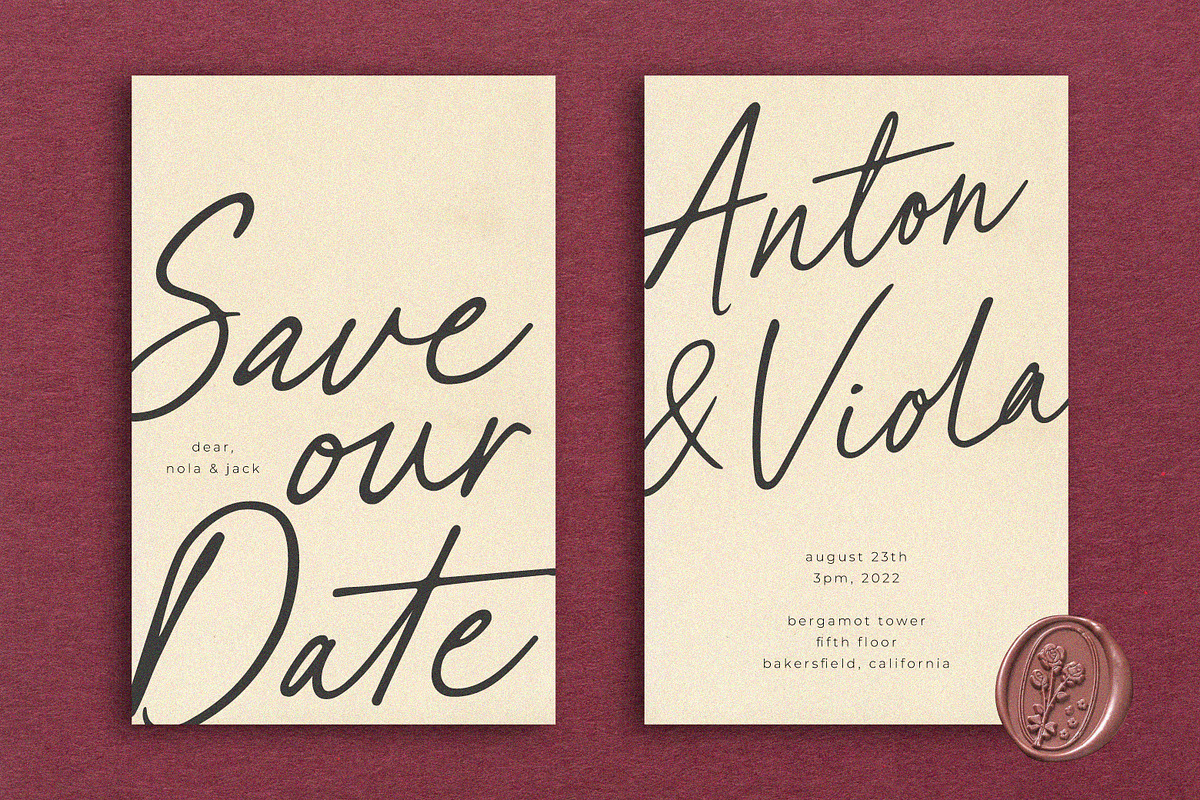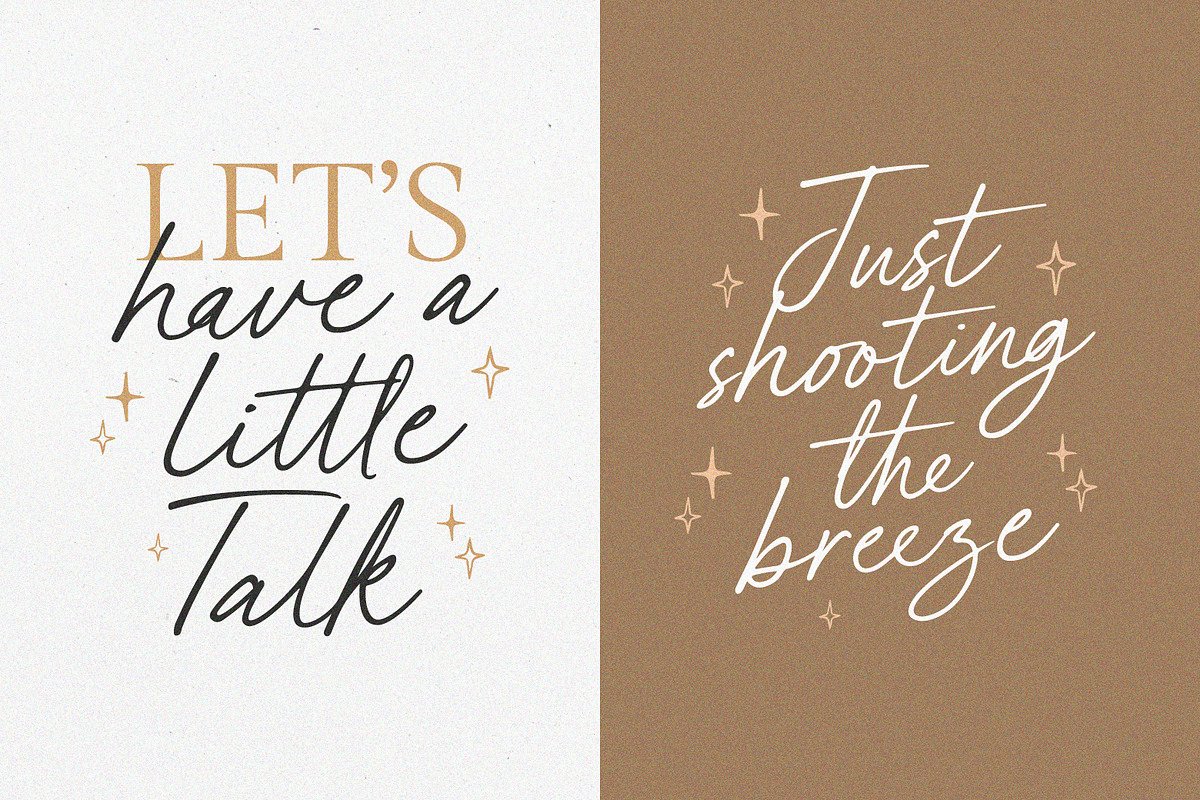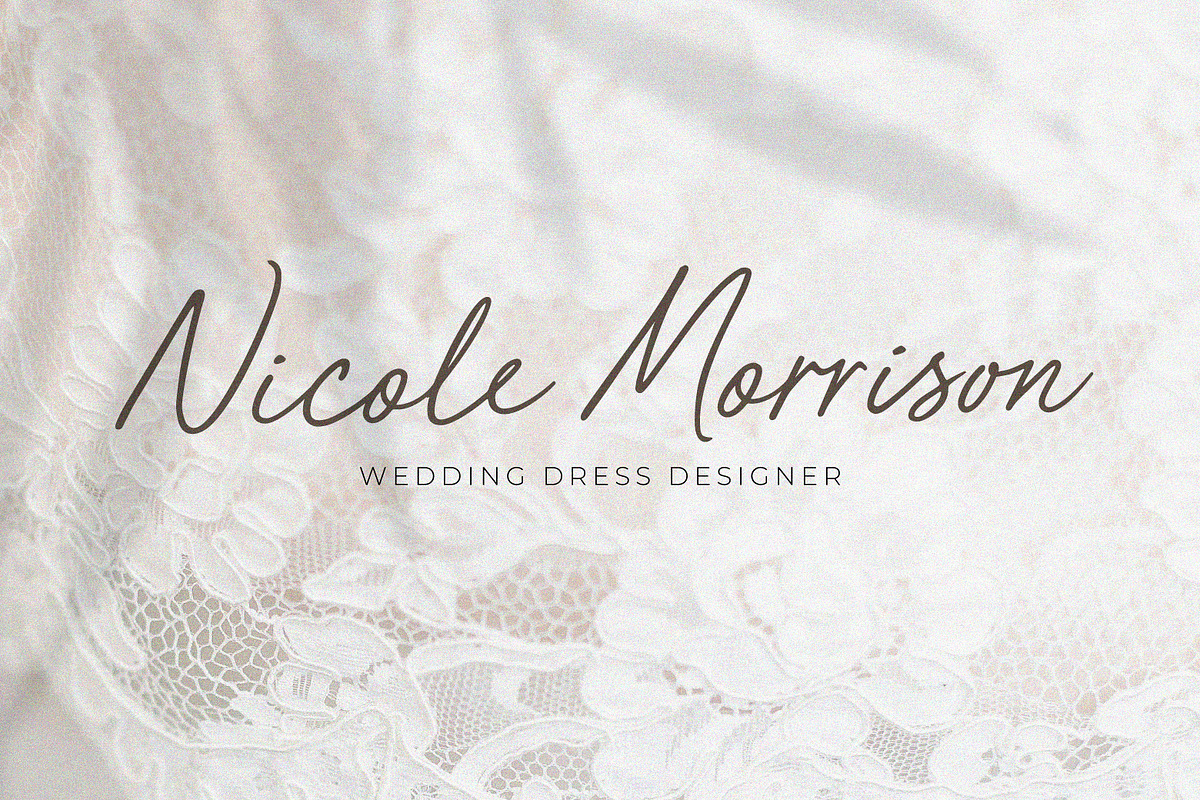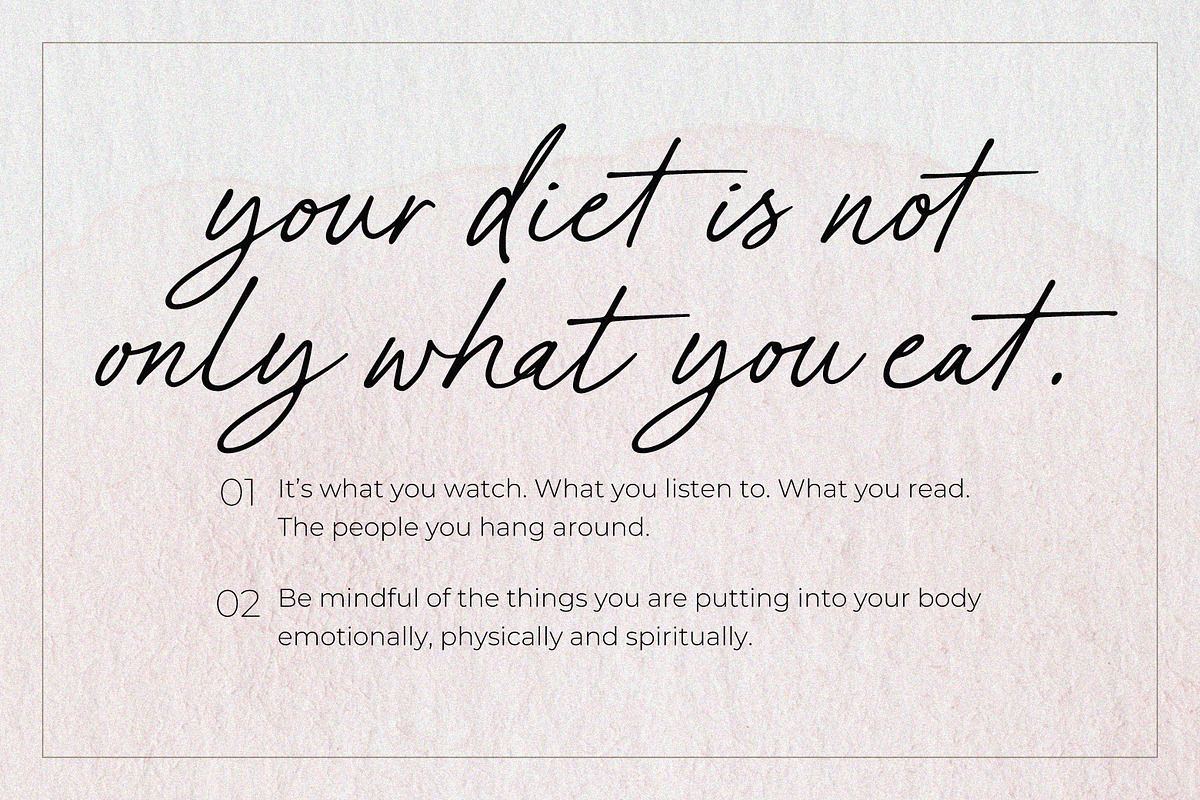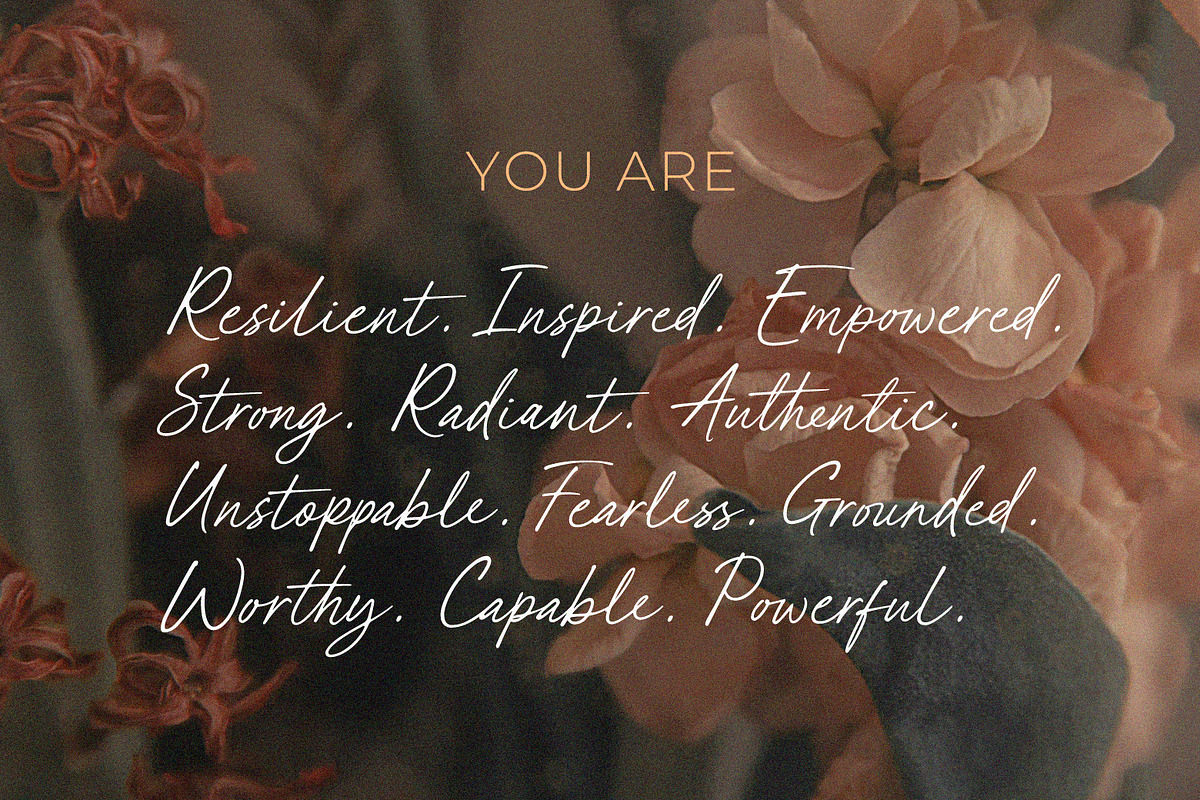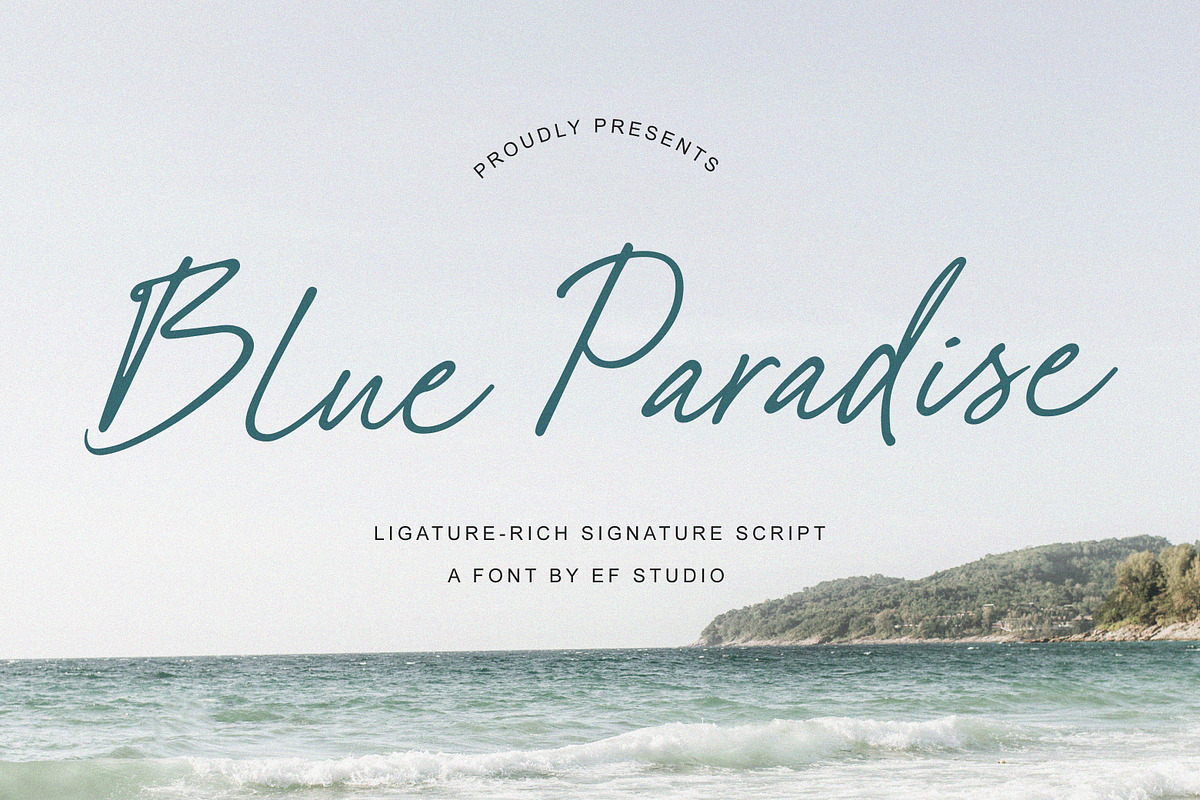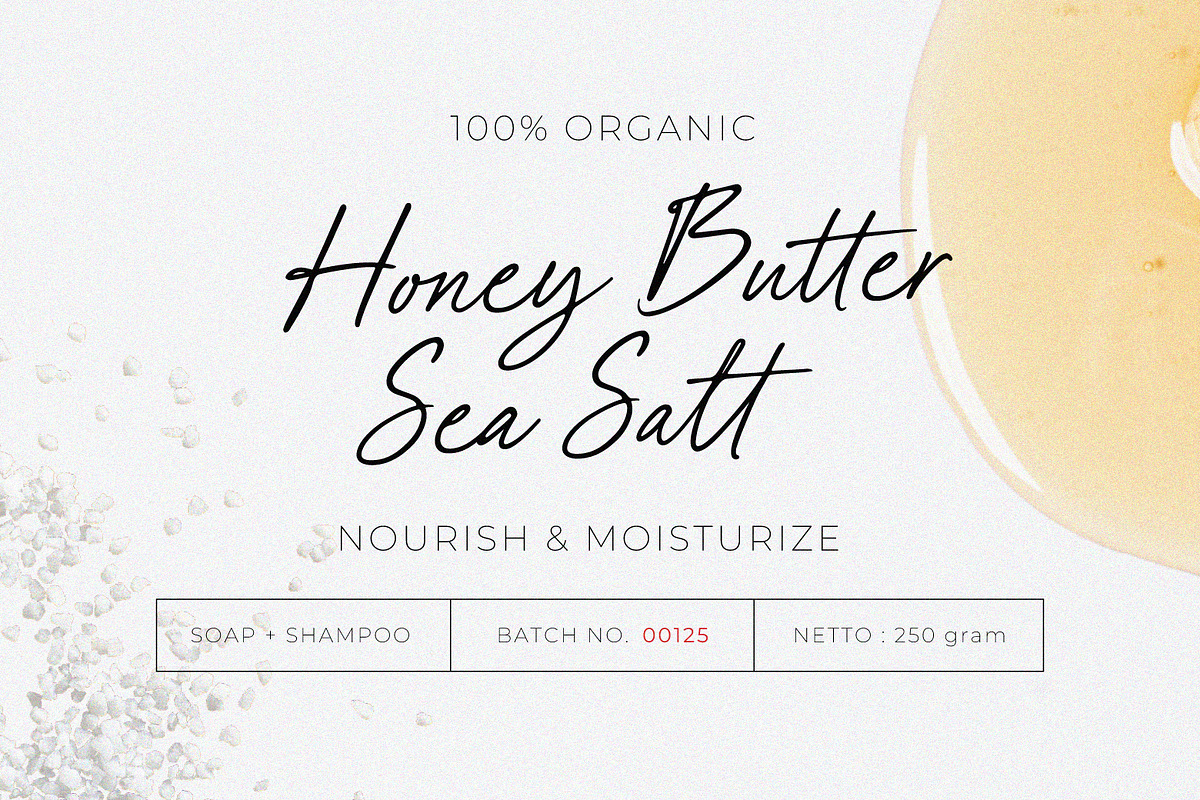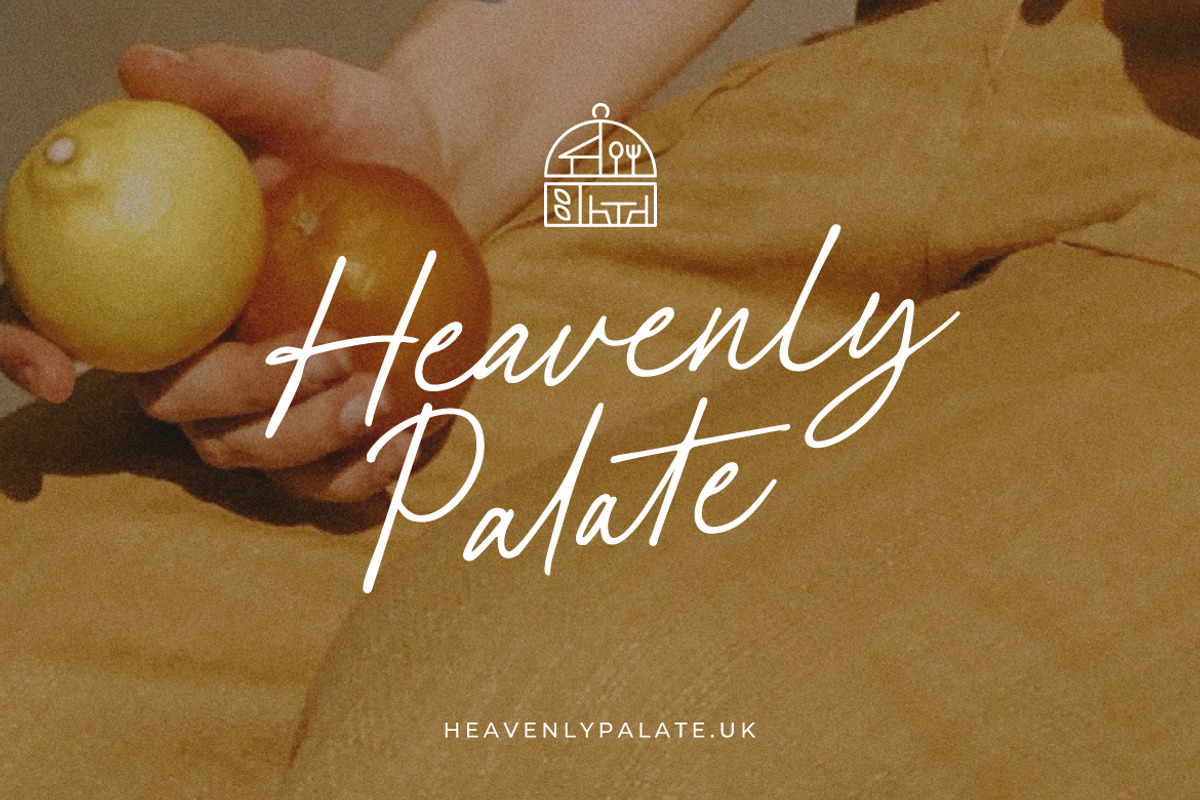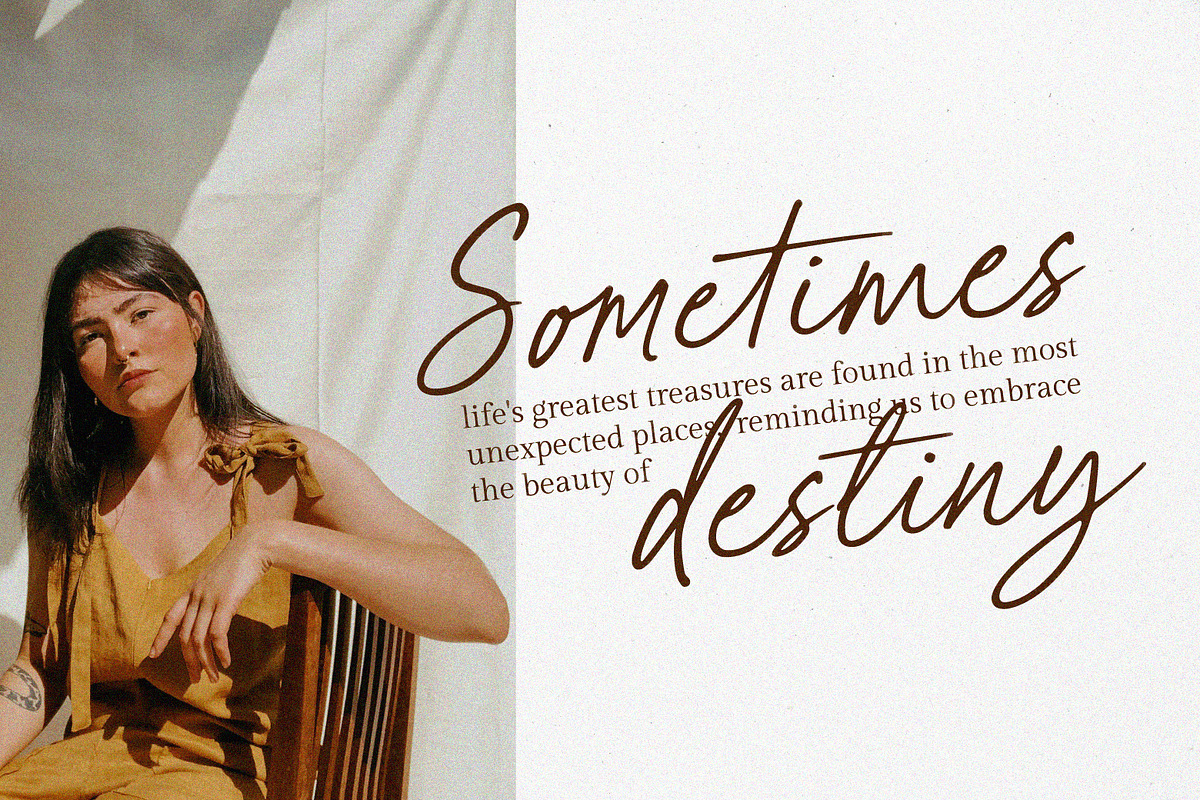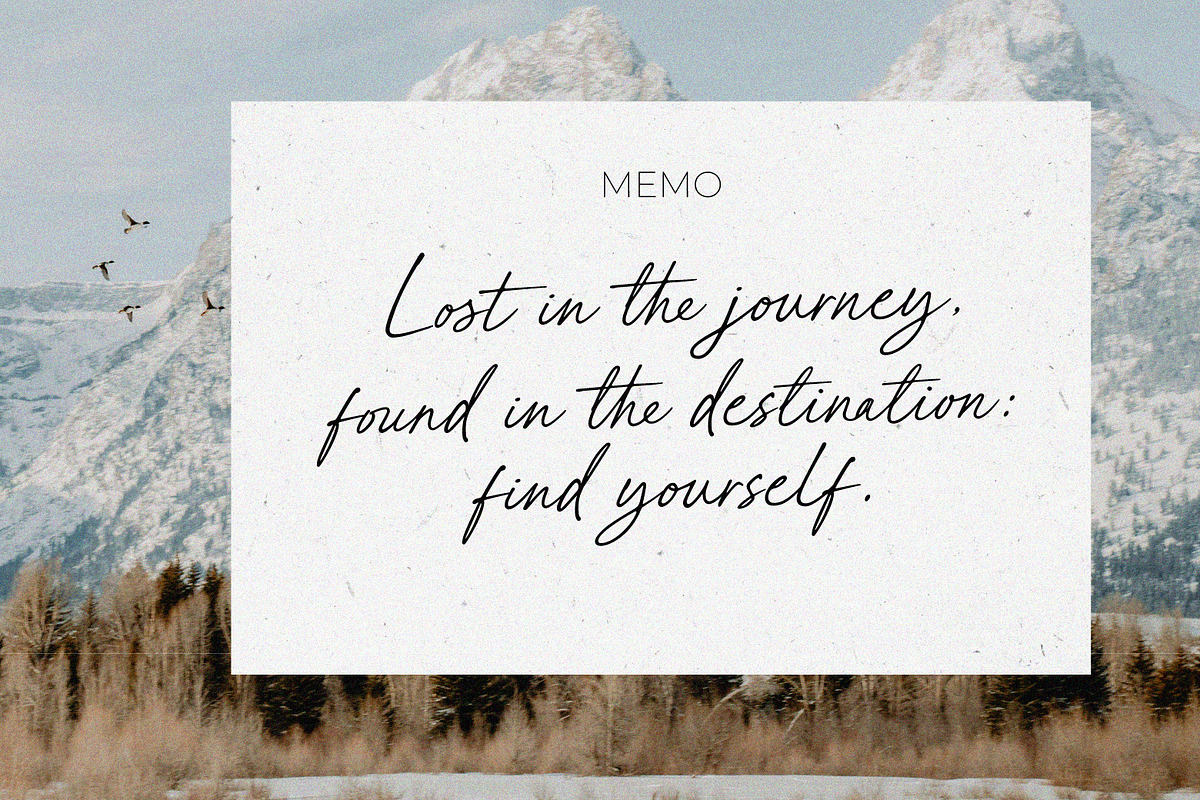
Blue Paradise | Signature Script
Blue Paradise Script offers a blend of sophistication and authenticity. With 77 meticulously crafted ligatures, each stroke flows seamlessly into the next, exuding elegance and charm. Its natural appearance captures the essencge of handwritten script, evoking a sense of warmth and personality. This font brings richness to any design, enhancing invitations, branding, or editorial projects with a touch of timeless beauty and character.